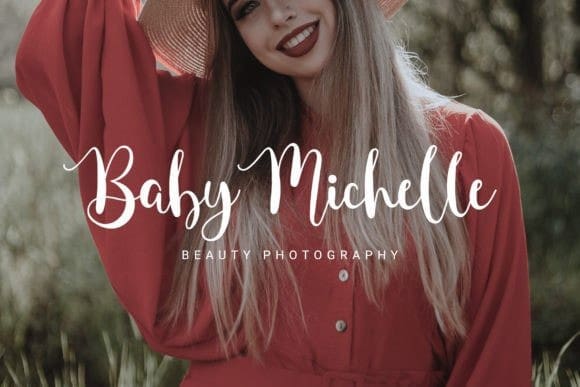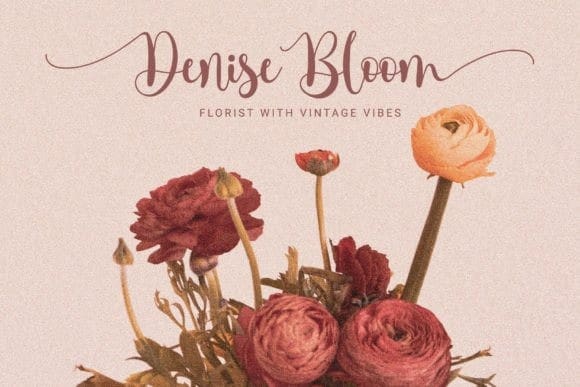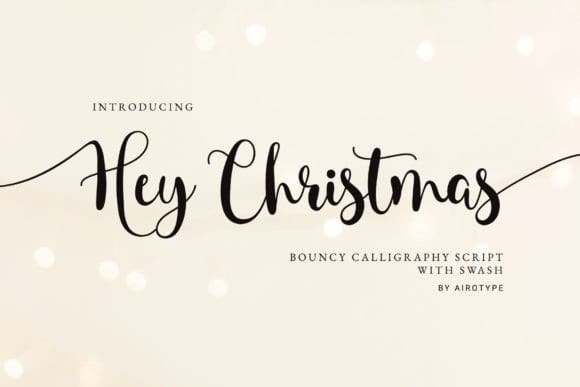
Hey Christmas Calligraphy Font
Hey Christmas Calligraphy Font is a cute and bouncy script font that is playful and elegant at the same time. Hey Christmas is the perfect font for any design project, such as wedding invitations, t-shirt designs, crafting, stickers, sublimation, and many more.